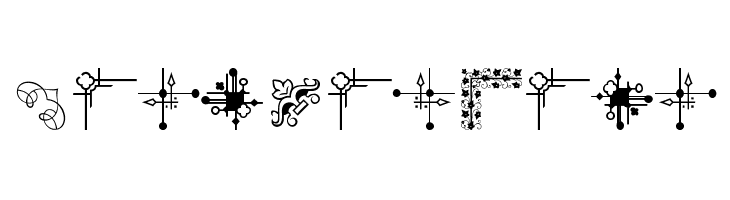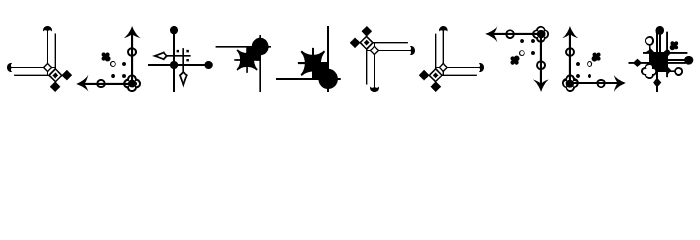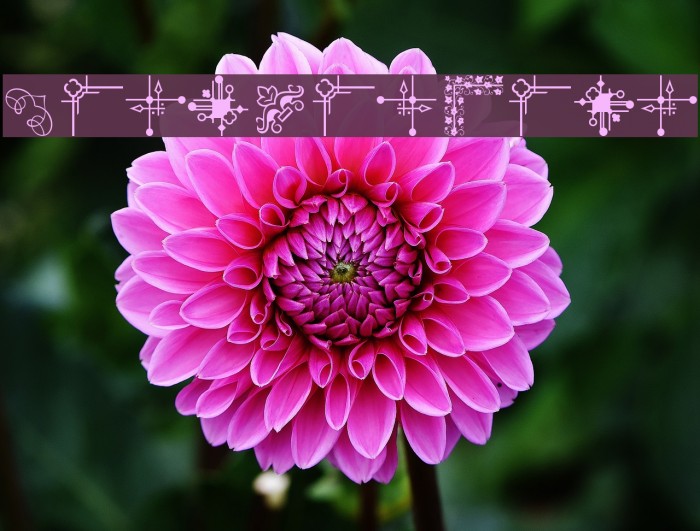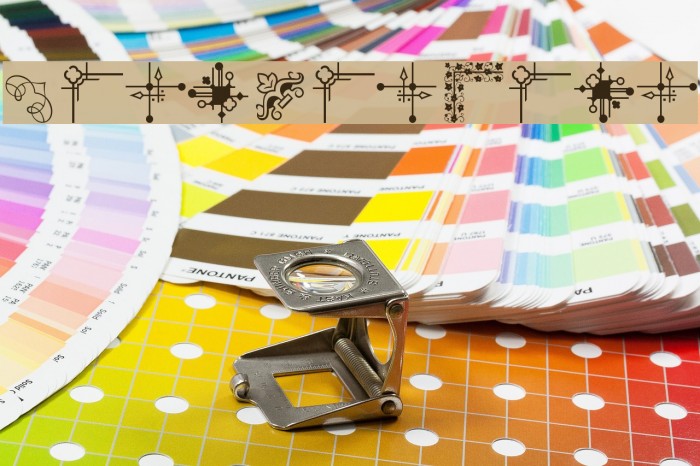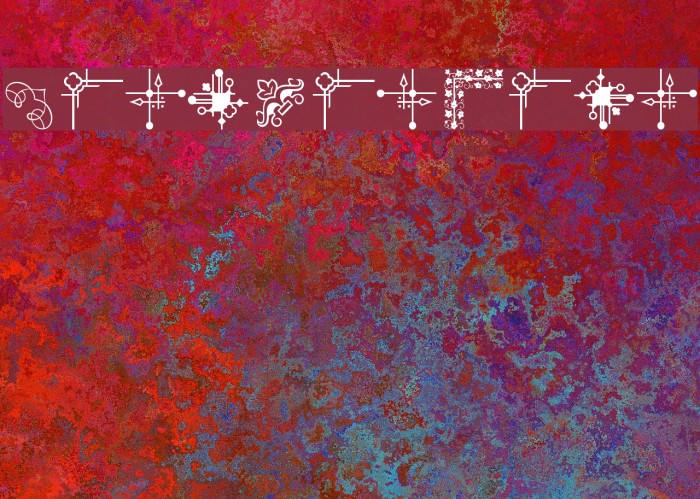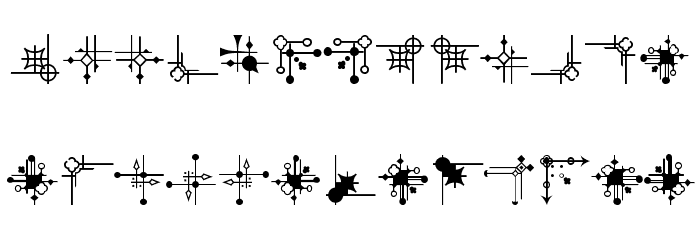
CornPopFour Font
This font is a highly decorative and intricate design, characterized by its elaborate and ornate patterns. Each character is crafted with a unique combination of geometric shapes, swirls, and flourishes, creating a complex and artistic appearance. The design incorporates elements such as dots, lines, and curves, giving it a whimsical and almost abstract feel. The characters are not uniform, with varying levels of detail and embellishment, making it a standout choice for artistic and creative projects. The overall aesthetic is reminiscent of ornamental art, with a modern twist that adds a touch of sophistication and elegance.
An intricate and decorative font with ornate, artistic patterns.
• Proposed Projects: Ideal for artistic projects, invitations, posters, and decorative headings.
• Category: Decorative/Display
• Overall Style: Decorative
• Use Case: Logos, Posters, Invitations